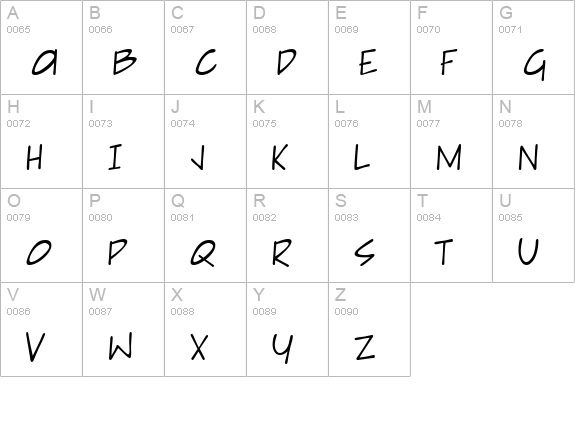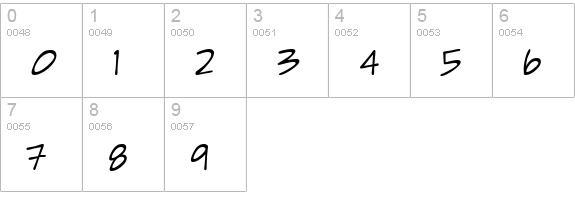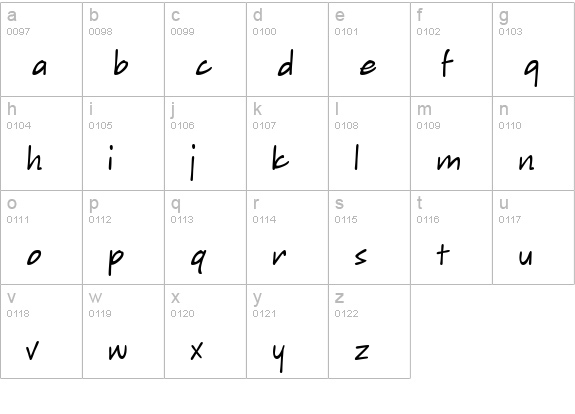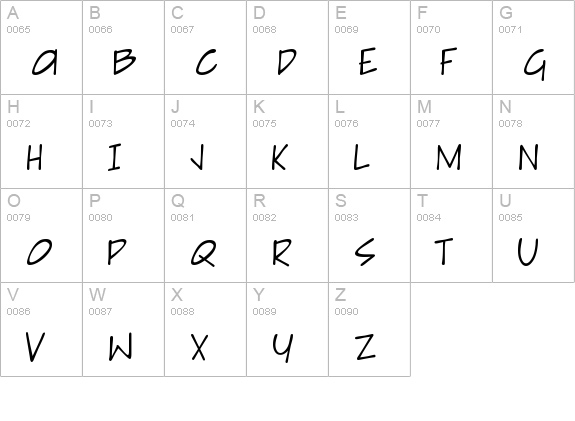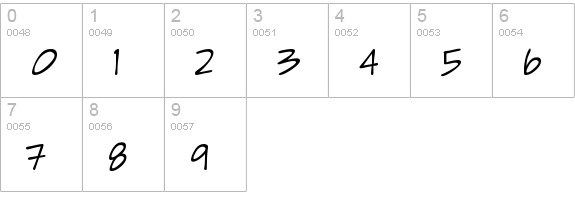
Sketchpad Note Font Details
Introducing Sketchpad Note, a delightful and charming font that will add a touch of whimsy to your design projects. With its hand-drawn style and playful strokes, Sketchpad Note captures the essence of creativity and spontaneity. This font is perfect for any project that needs a unique and artistic flair. Whether you're designing invitations, creating logos, or crafting personalized artwork, Sketchpad Note will bring your ideas to life with its quirky and expressive characters. But what makes Sketchpad Note truly special is that it's not just a beautiful font – it's also free! That's right, you can download this amazing font without spending a dime. Thanks to FontsMarket.com, Sketchpad Note is freely available for you to enjoy and use in all your creative endeavors. So why wait? Unlock your imagination and let Sketchpad Note be your artistic companion. Download it now from FontsMarket.com and let the magic of this free font take your designs to new heights.